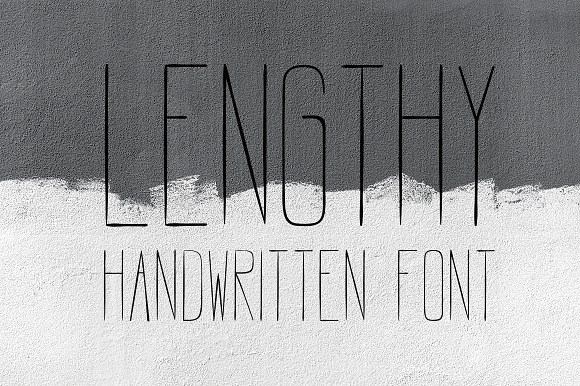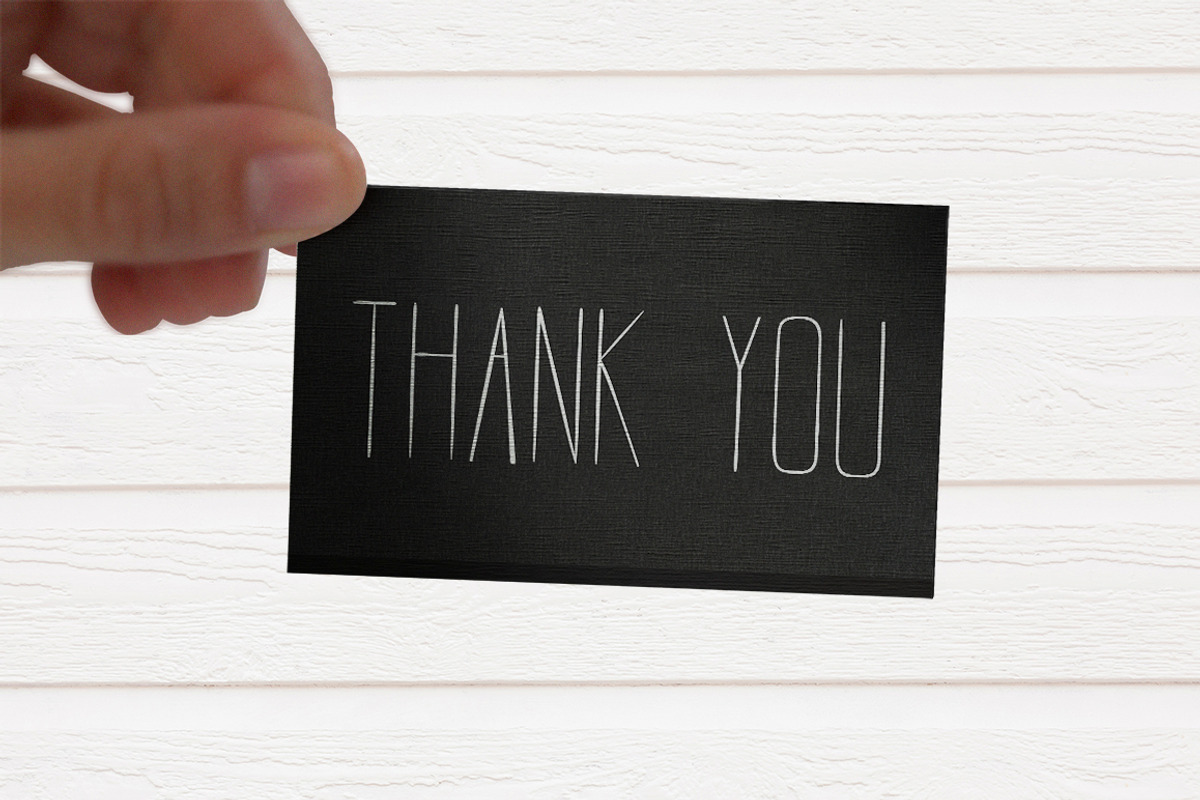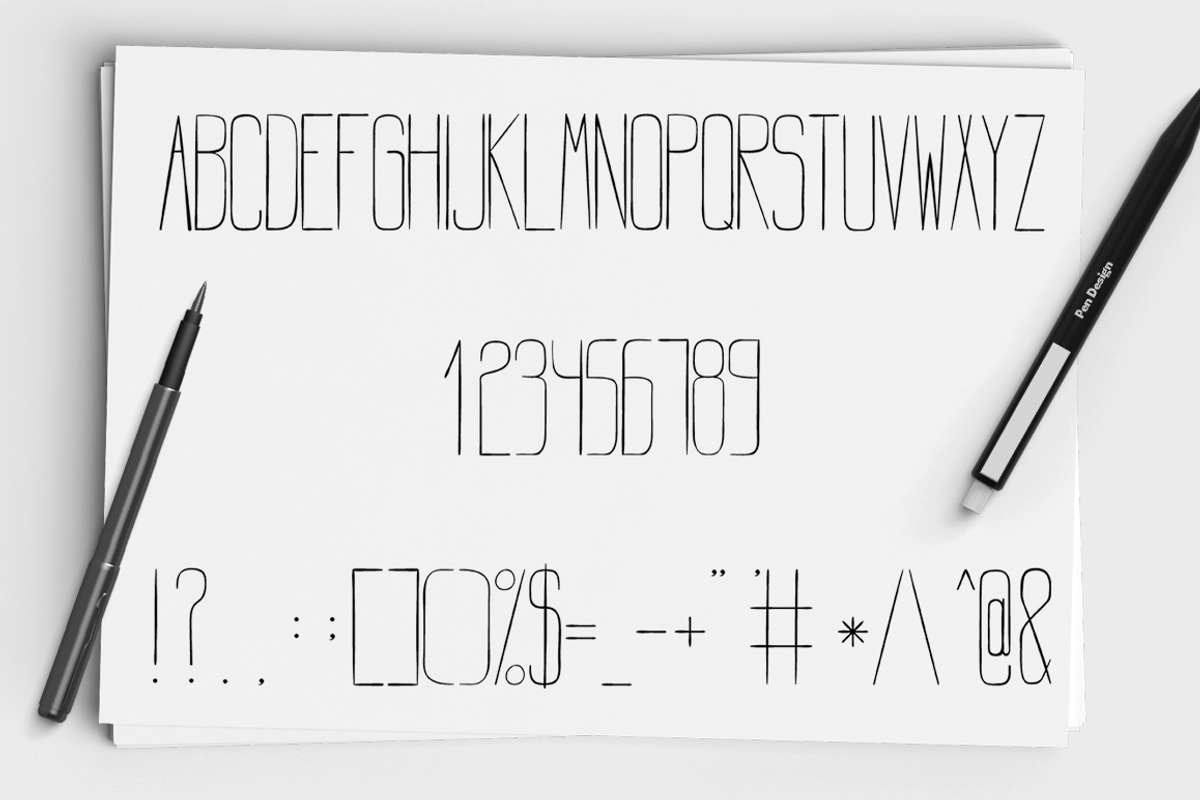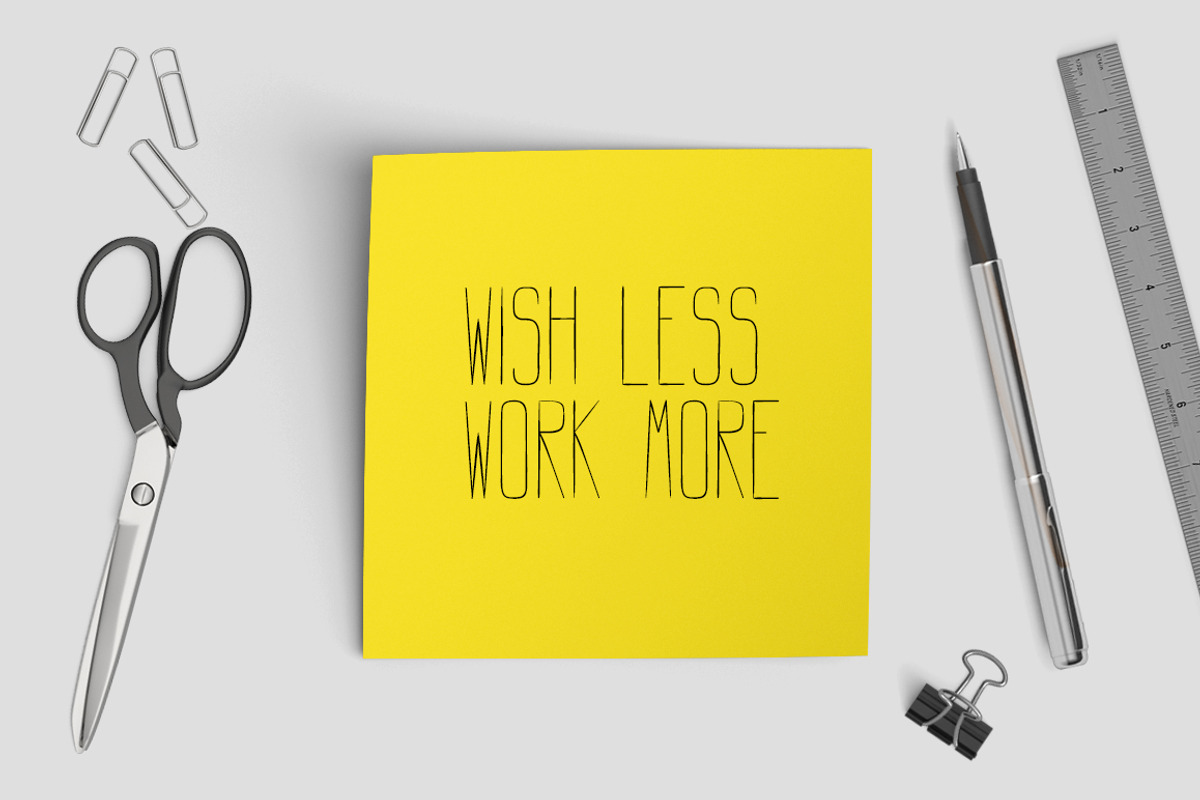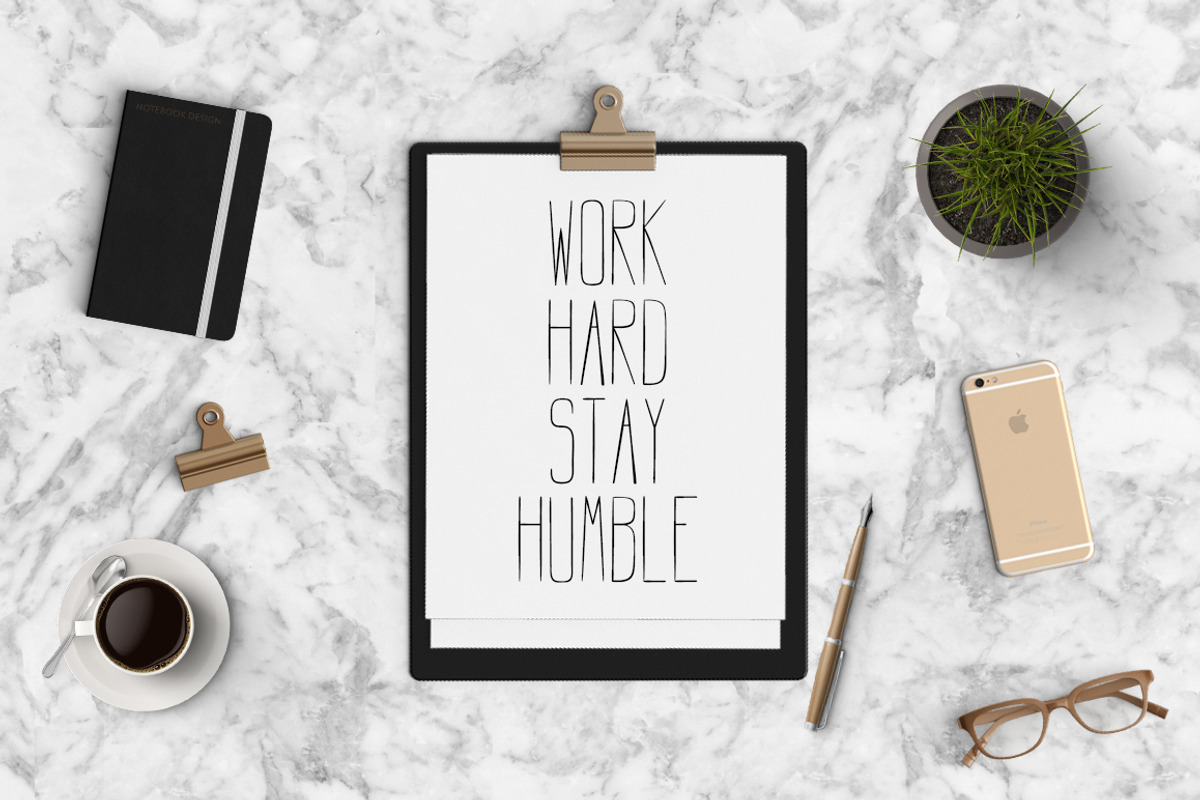
LENGTHY | All Caps Brush Font
Font Lengthy - regular
Presenting: Lengthy! Font brush with natural flow. Handmade with long strokes, Lengthy is not limited to any boundaries or expectations. It is an ideal choice for personal branding projects, handwritten quotes, design for home, product packaging or simply as a modern and stylish text overlay on any background image.
Lengthy Script handwriting input, font size, all uppercase letters, numbers and a wide range of punctuation marks.
Instances Lengthy Simply enter any upper case letter in this font
BONUS Lengthy alphabet